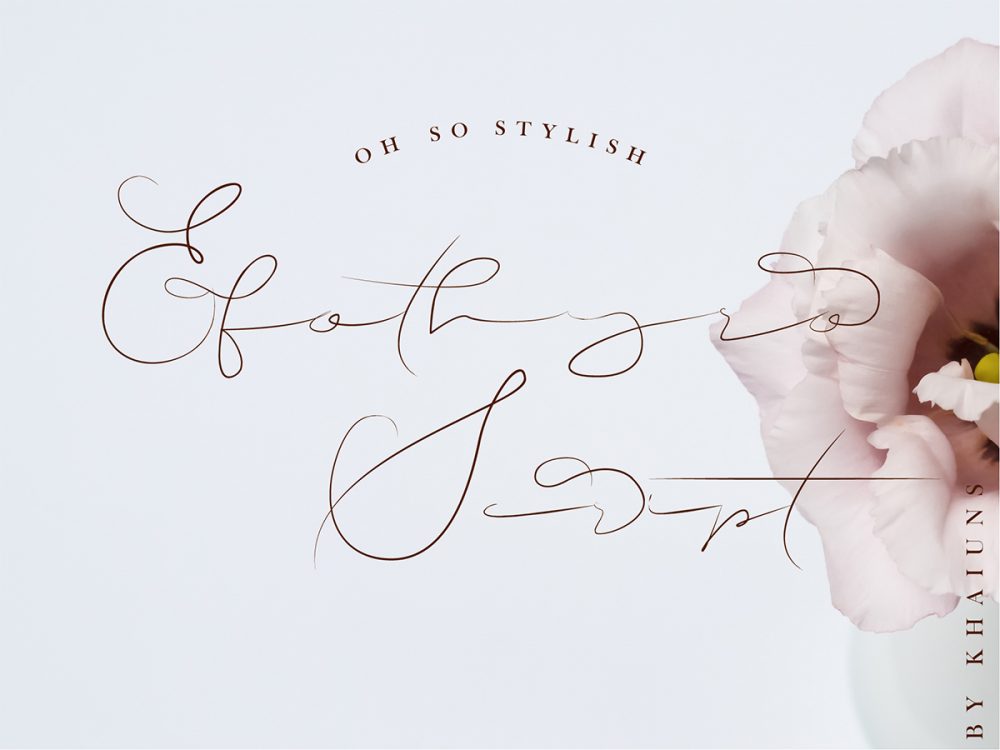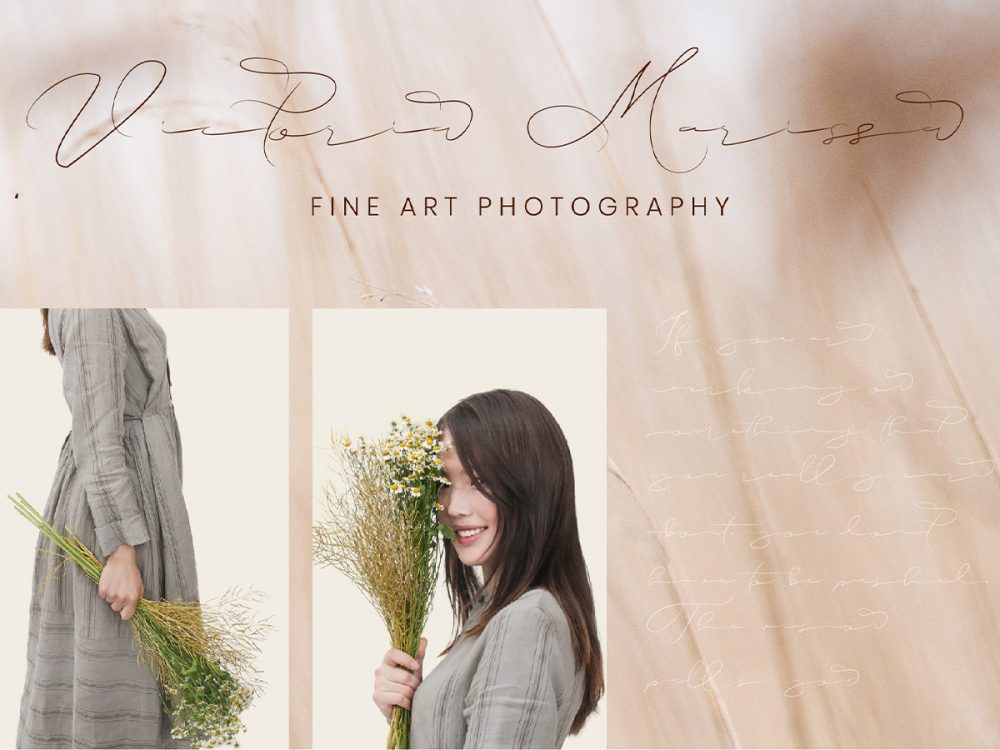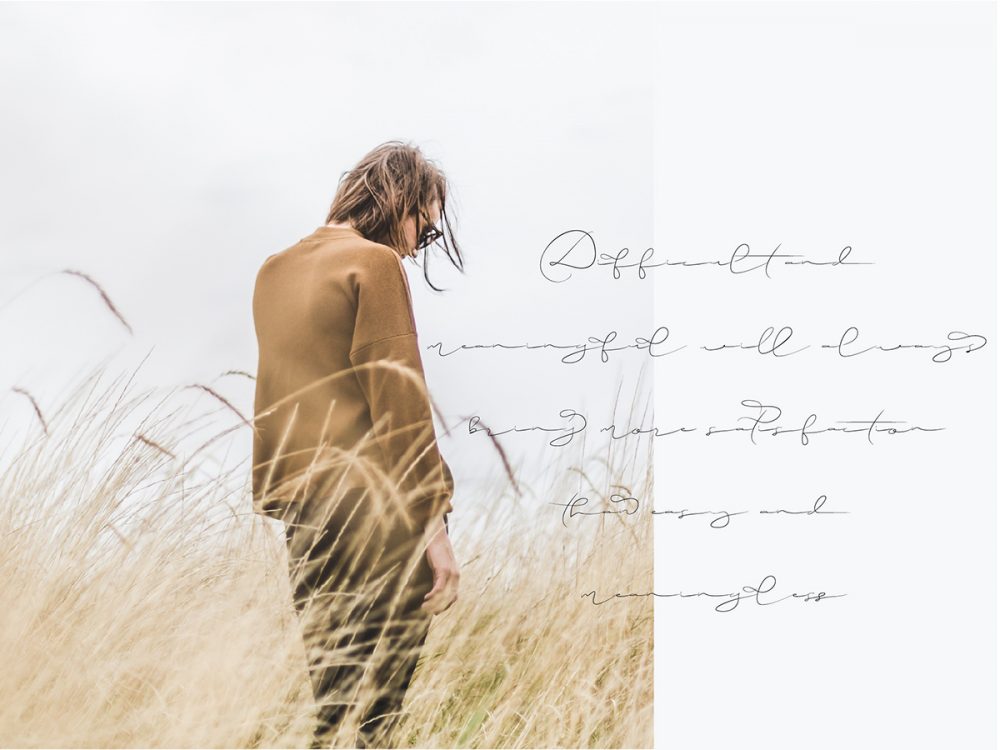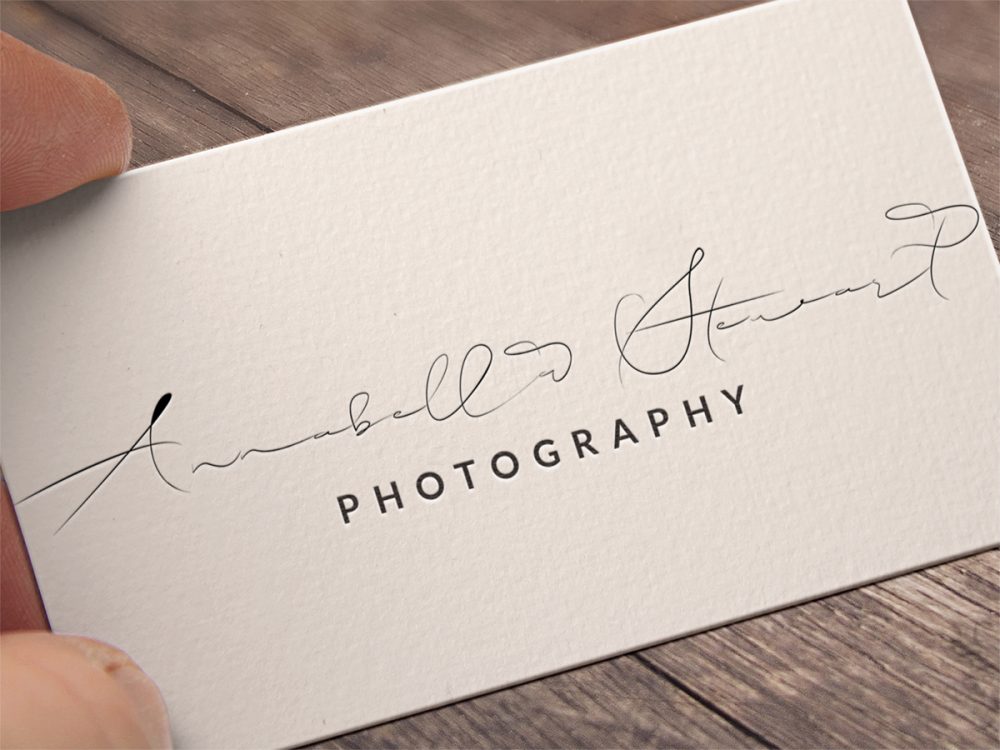
Free Efothyro Script Font
Free Efothyro Script Font is an interesting modern calligraphic font that is very suitable for creating various design projects that require a script typeface. Use this font to create posters, cards, wedding invitations, branding, flyers, prints, and more. If you want to get more features please buy the full version.